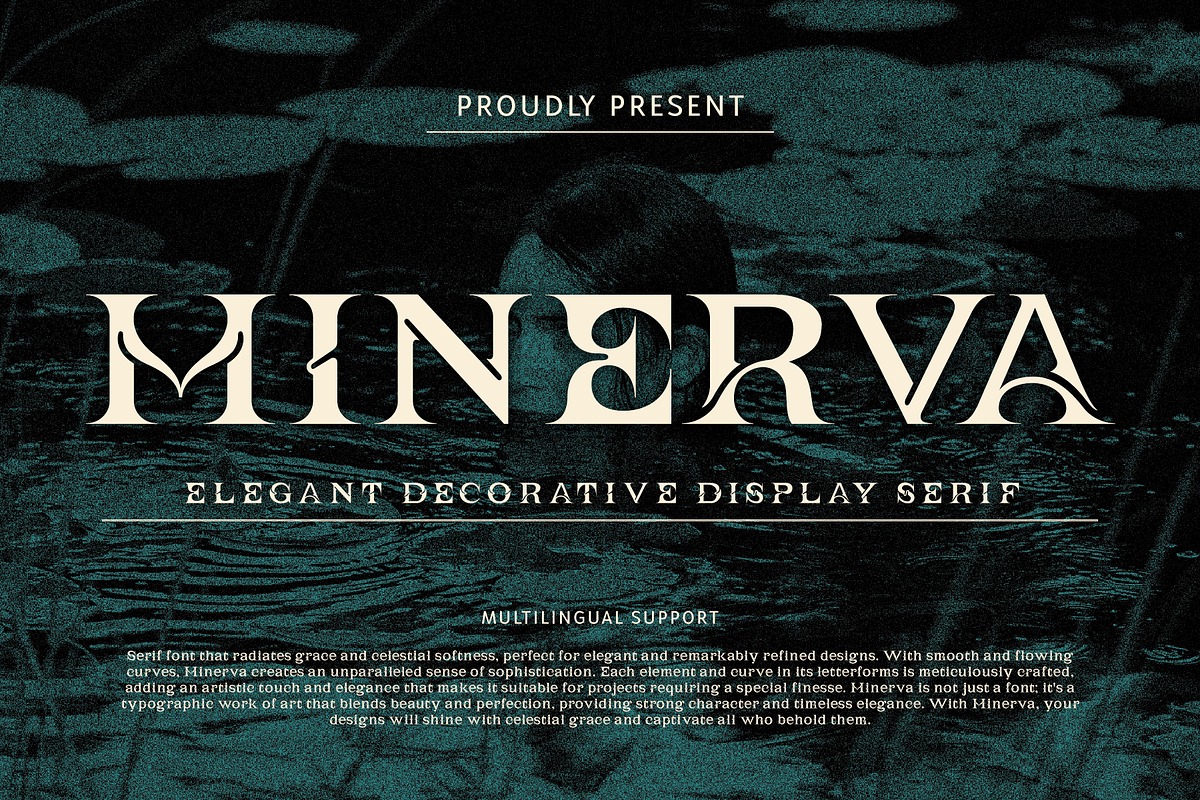
CF Minerva – Elegant Serif Font
CF Minerva – Elegant Serif Font brings a balanced structure and contemporary look, making it suitable for both digital and print design. Minerva – a serif font that radiates grace and celestial softness, perfect for elegant and remarkably refined designs. With smooth and flowing curves, Minerva creates an unparalleled sense of sophistication. Each element and curve in its letterforms is meticulously crafted, adding an artistic touch and elegance that makes it suitable for projects requiring a special finesse. Minerva is not just a font; it’s a typographic work of art that blends beauty and perfection, providing strong character and timeless elegance. With Minerva, your designs will shine with celestial grace and captivate all who behold them.